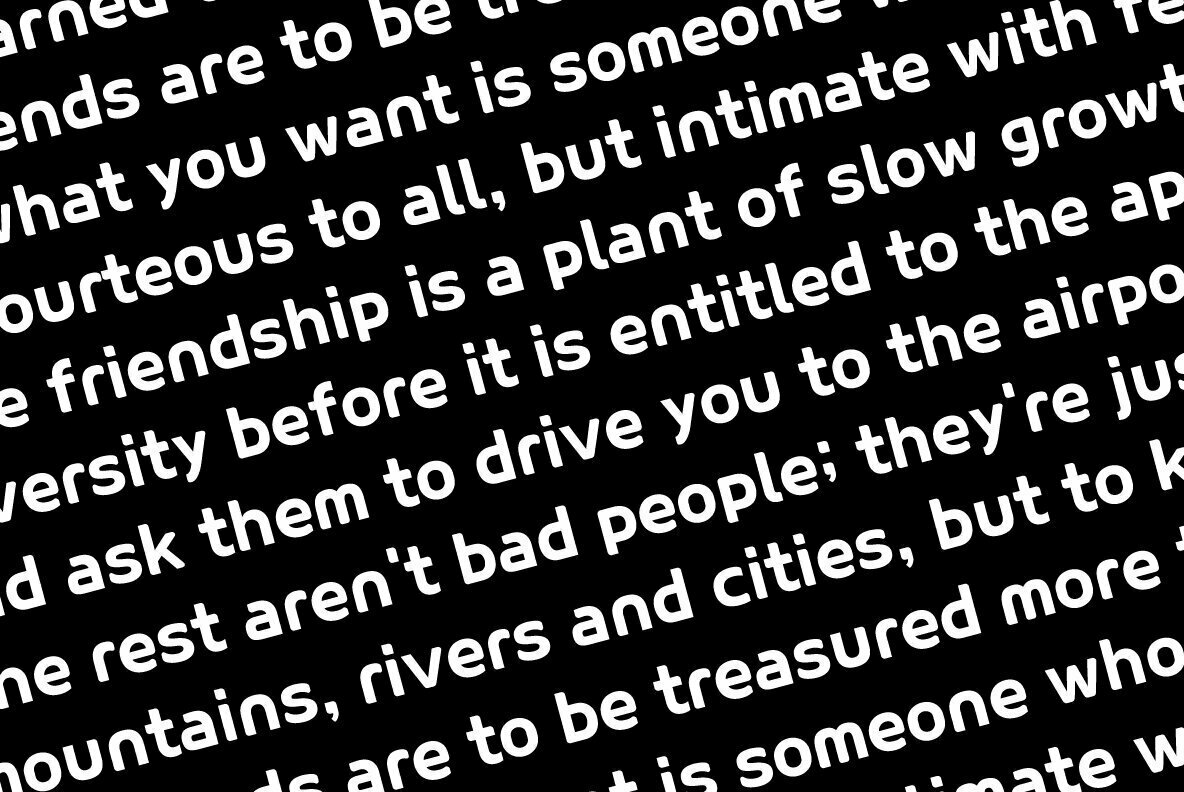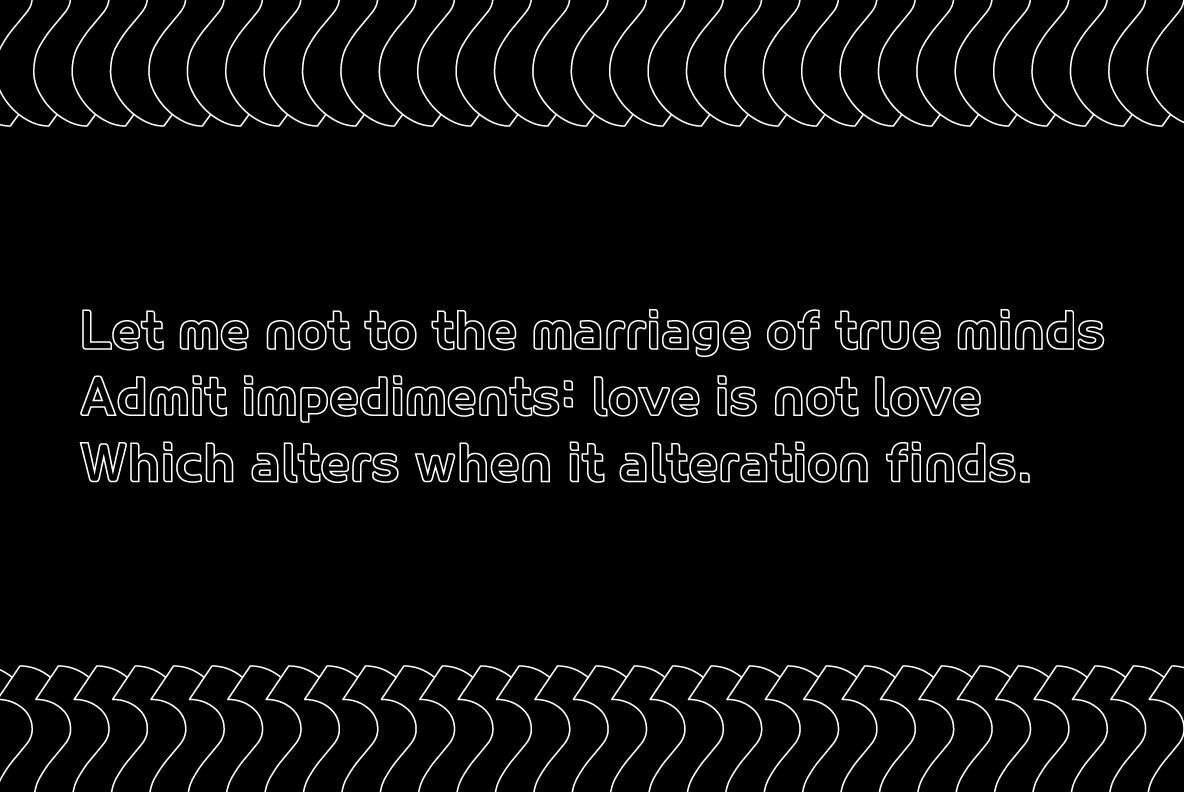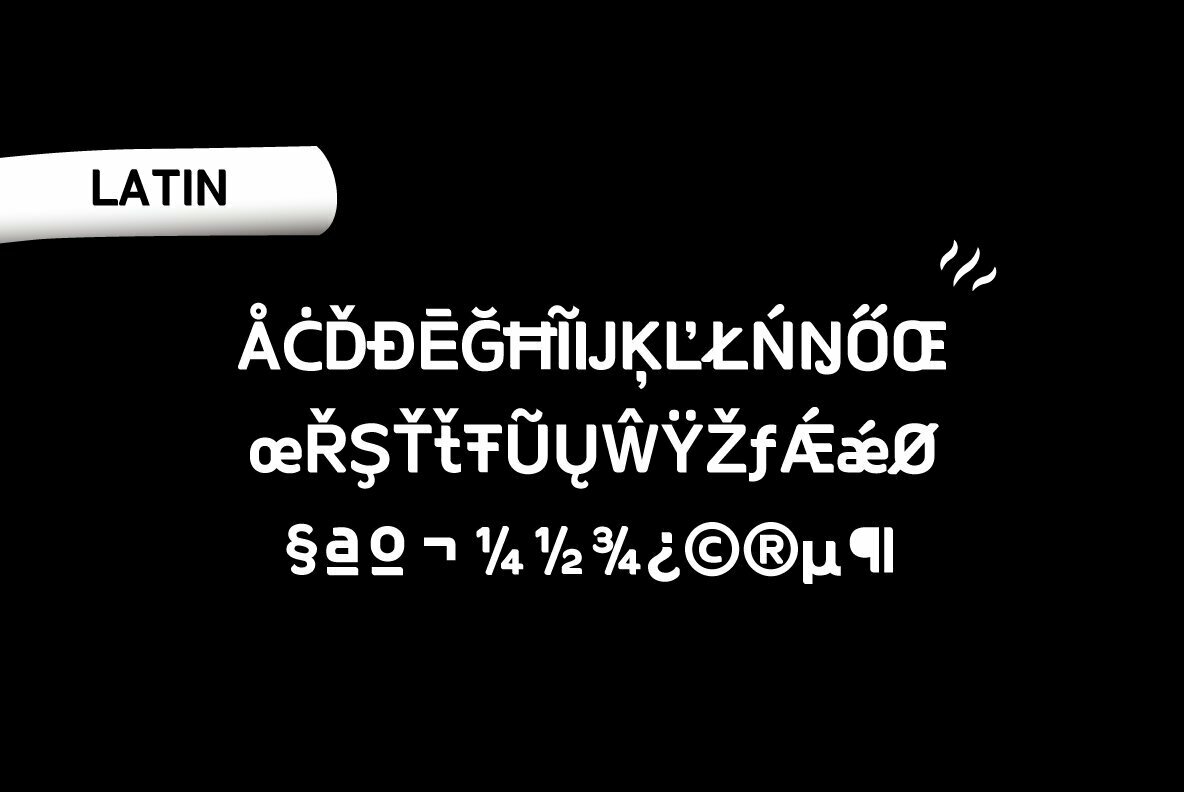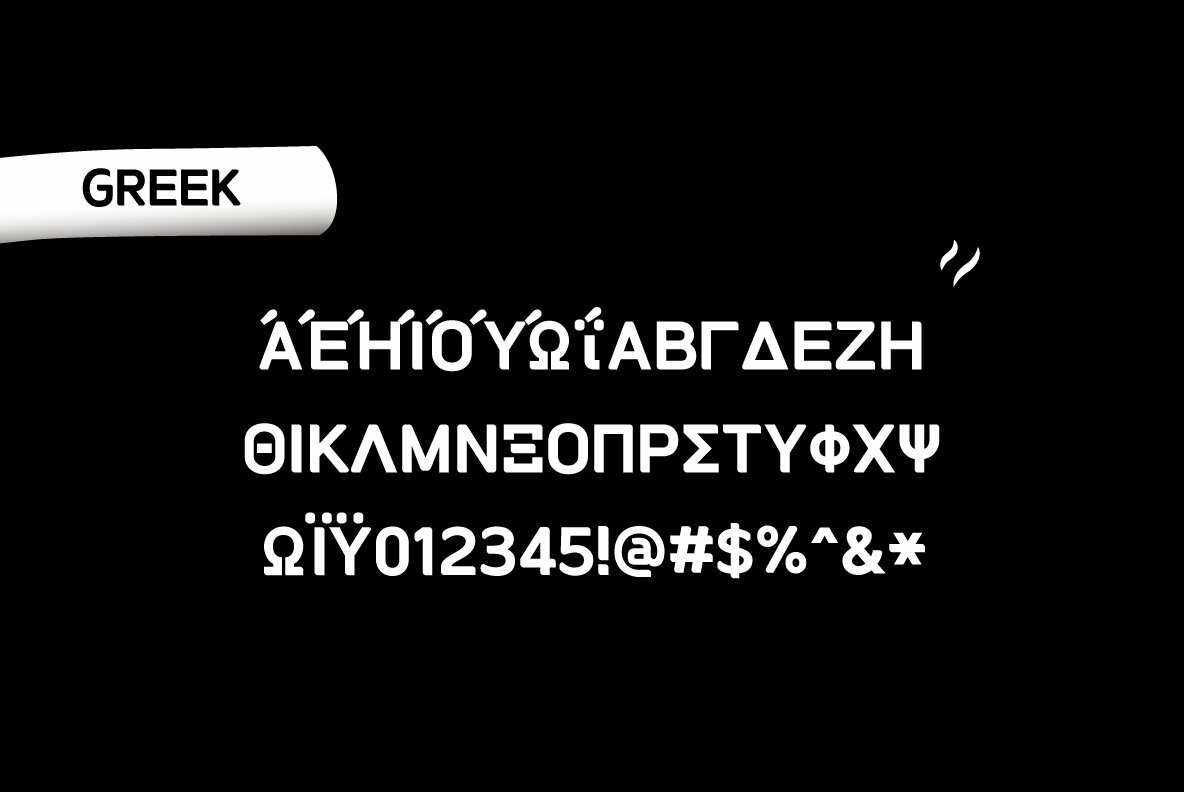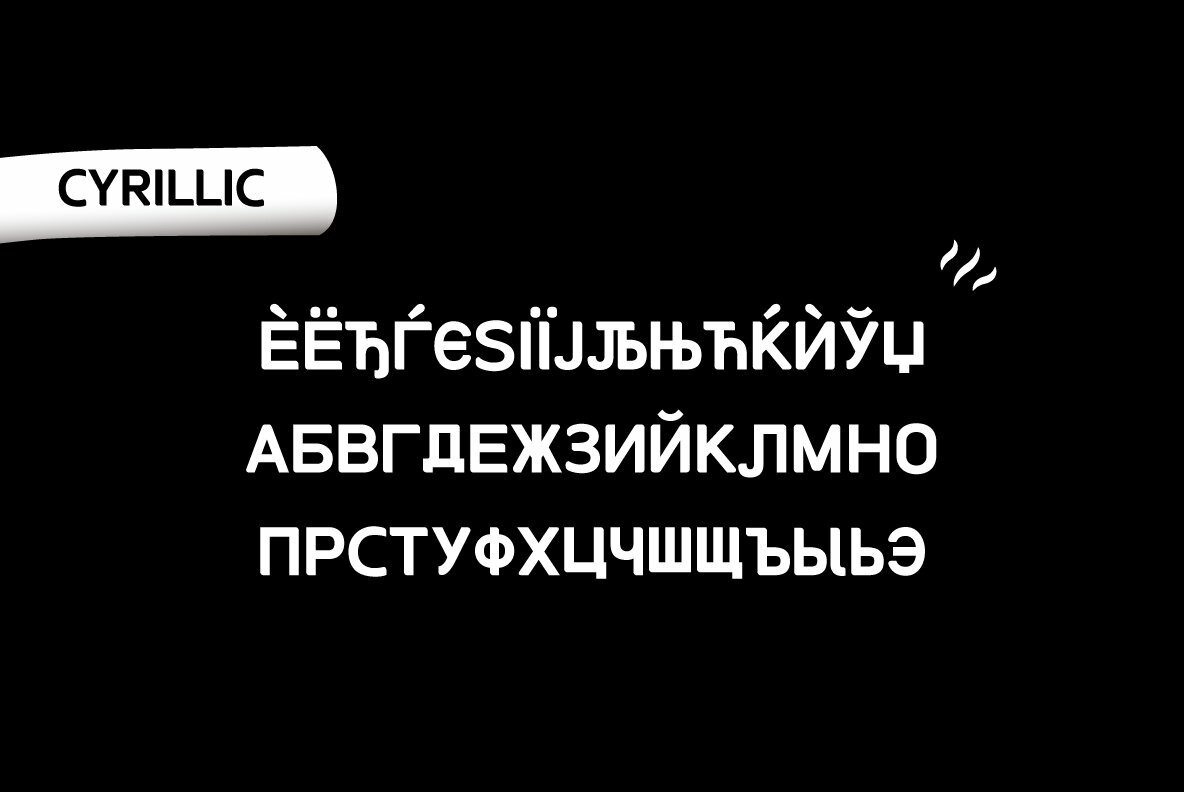
HU Garaetteok Font
HU Garaetteok is a cute headline typeface that expresses a straight stroke and end in a round shape. The characteristics of the writing were added with straight strokes and lively curves.